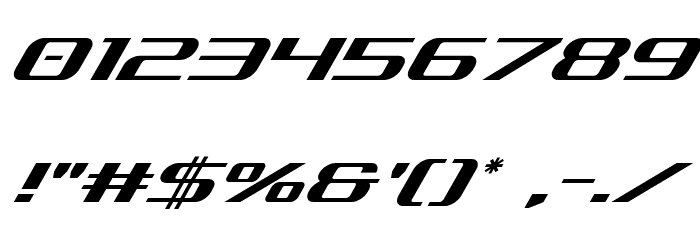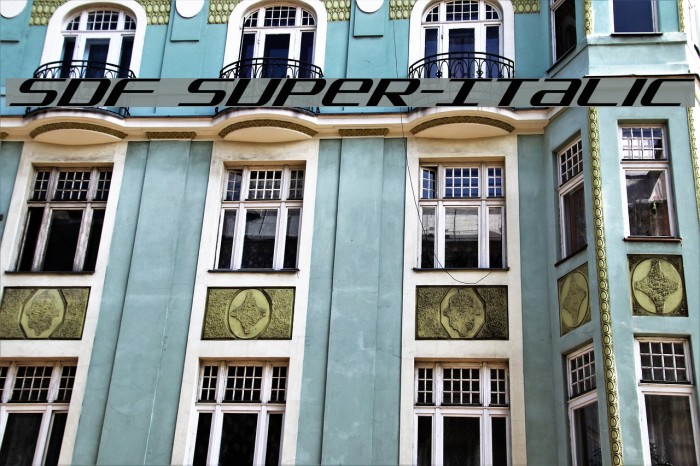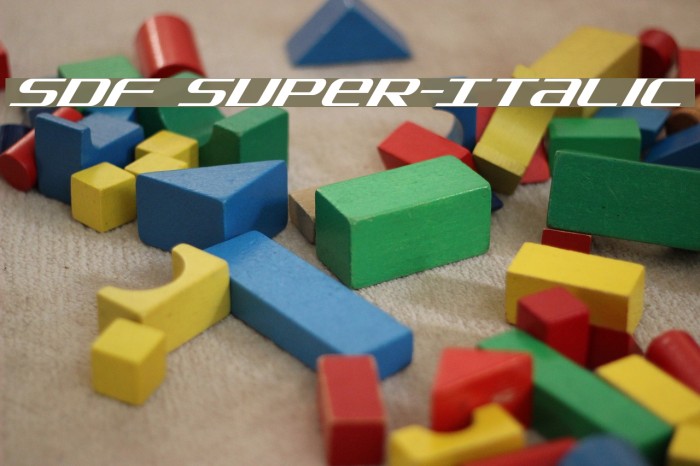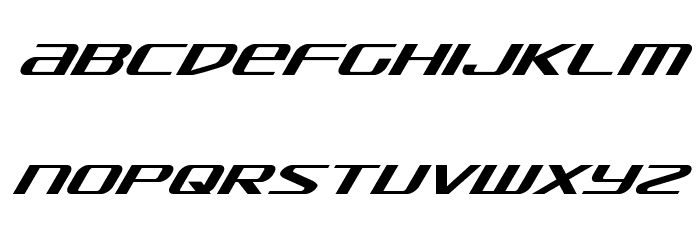
SDF Super-Italic Font
SDF Super-Italic Description
This font features a dynamic, italicized style with a futuristic and sporty aesthetic. The characters are slanted forward, giving a sense of motion and speed. The strokes are clean and sharp, with a consistent thickness that maintains readability while adding a modern edge. The angular design of the letters enhances its contemporary feel, making it suitable for projects that require a bold and energetic look. The numerals and special characters follow the same stylistic cues, ensuring uniformity across all text elements.
A dynamic, italicized font with a futuristic and sporty aesthetic from Uncategorized fonts.
- Proposed Projects: Ideal for sports branding, automotive designs, tech-related projects, and dynamic advertising campaigns.